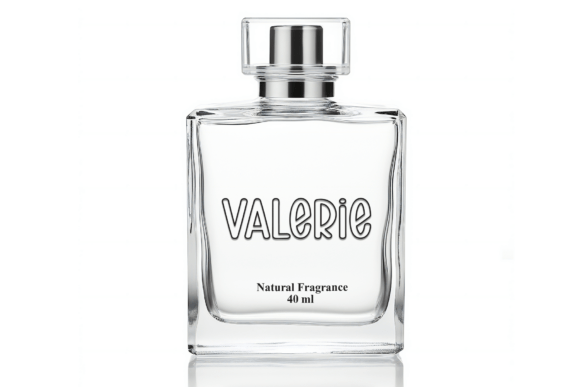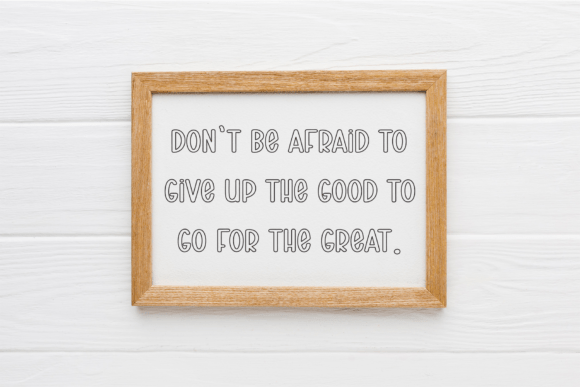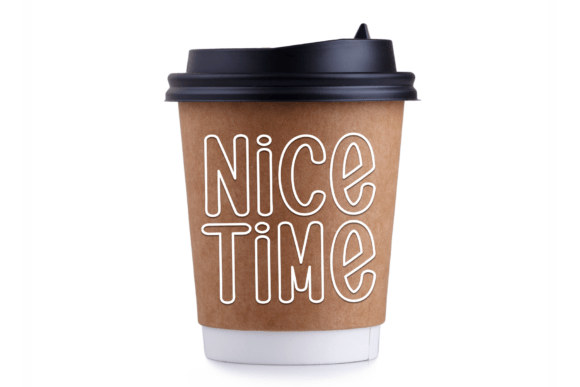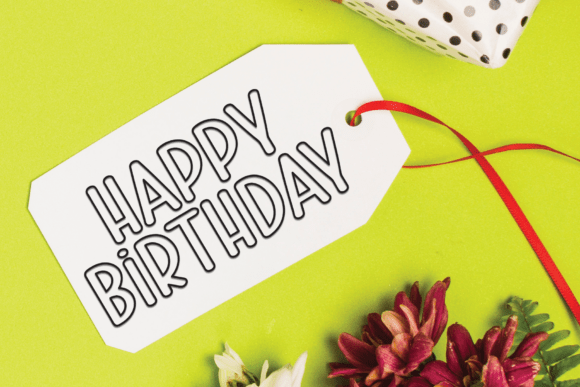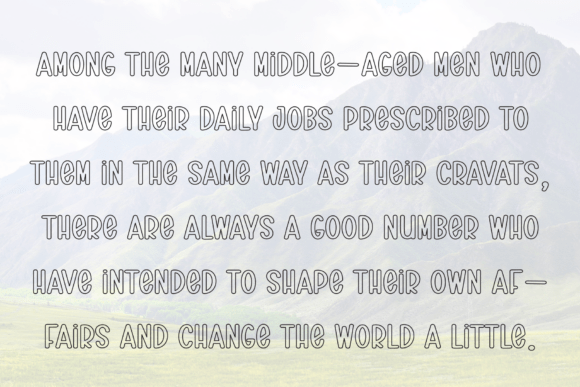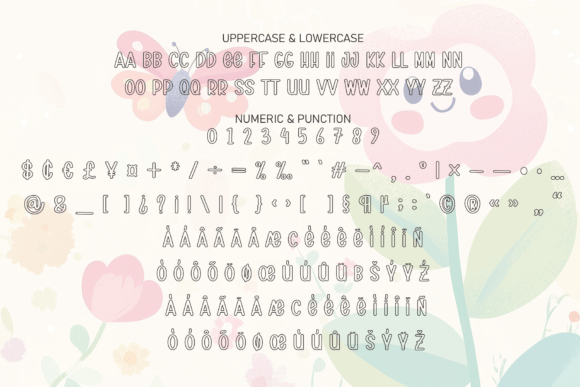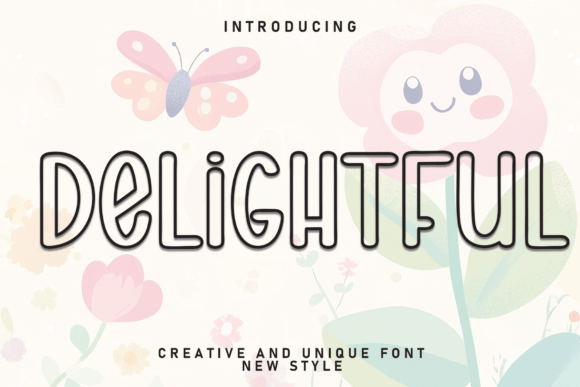
Introducing Delightful Font: The Perfect Blend of Warmth and Clarity
In the world of typography, a font can make or break the visual appeal of a project. For designers and crafters, finding the right font that conveys the desired message and resonates with the audience is a daunting task. This is where Delightful Font comes in – a casual and neat display font designed to bring warmth and clarity to your projects.
The Design Philosophy Behind Delightful Font
Delightful Font is crafted with a clean structure and approachable style, making it an ideal choice for branding, headlines, and everyday designs. The font’s balanced letterforms offer readability and charm, ensuring that every message feels genuine and inviting. The design philosophy behind Delightful Font is to create a sense of warmth and friendliness, making it perfect for projects that require a personal touch.
Key Features of Delightful Font
- Clean Structure: Delightful Font boasts a clean and organized structure, making it easy to read and understand.
- Approachable Style: The font’s approachable style makes it perfect for projects that require a friendly and inviting tone.
- Balanced Letterforms: The balanced letterforms ensure that every message feels genuine and inviting, making it ideal for branding and headlines.
- Readability: Delightful Font offers excellent readability, making it perfect for everyday designs and projects that require clear communication.
Why Choose Delightful Font?
With so many fonts available, why choose Delightful Font? Here are a few reasons why designers and crafters love Delightful Font:
- Unique Blend of Warmth and Clarity: Delightful Font offers a unique blend of warmth and clarity, making it perfect for projects that require a personal touch.
- Versatility: Delightful Font is versatile and can be used for a wide range of projects, from branding and headlines to everyday designs.
Perfect Use Cases for Delightful Font
Delightful Font is perfect for a wide range of projects, including:
- Branding: Use Delightful Font to create a unique and recognizable brand identity that resonates with your audience.
- Headlines: Delightful Font is perfect for headlines, adding a touch of warmth and clarity to your titles and headings.
- Everyday Designs: Use Delightful Font for everyday designs, such as social media graphics, flyers, and brochures, to add a personal touch.
Tips for Using Delightful Font
Here are a few tips for using Delightful Font:
- Experiment with Font Sizes: Experiment with different font sizes to find the perfect balance for your project.
- Pair with Other Fonts: Pair Delightful Font with other fonts to create a unique and visually appealing design.
- Use for Emphasis: Use Delightful Font to add emphasis to important information, such as headlines and titles.
In conclusion, Delightful Font is a versatile and charming font that is perfect for designers and crafters looking to add a personal touch to their projects. With its clean structure, approachable style, and balanced letterforms, Delightful Font is ideal for branding, headlines, and everyday designs. Whether you’re looking to create a unique brand identity or add a touch of warmth to your designs, Delightful Font is the perfect choice.